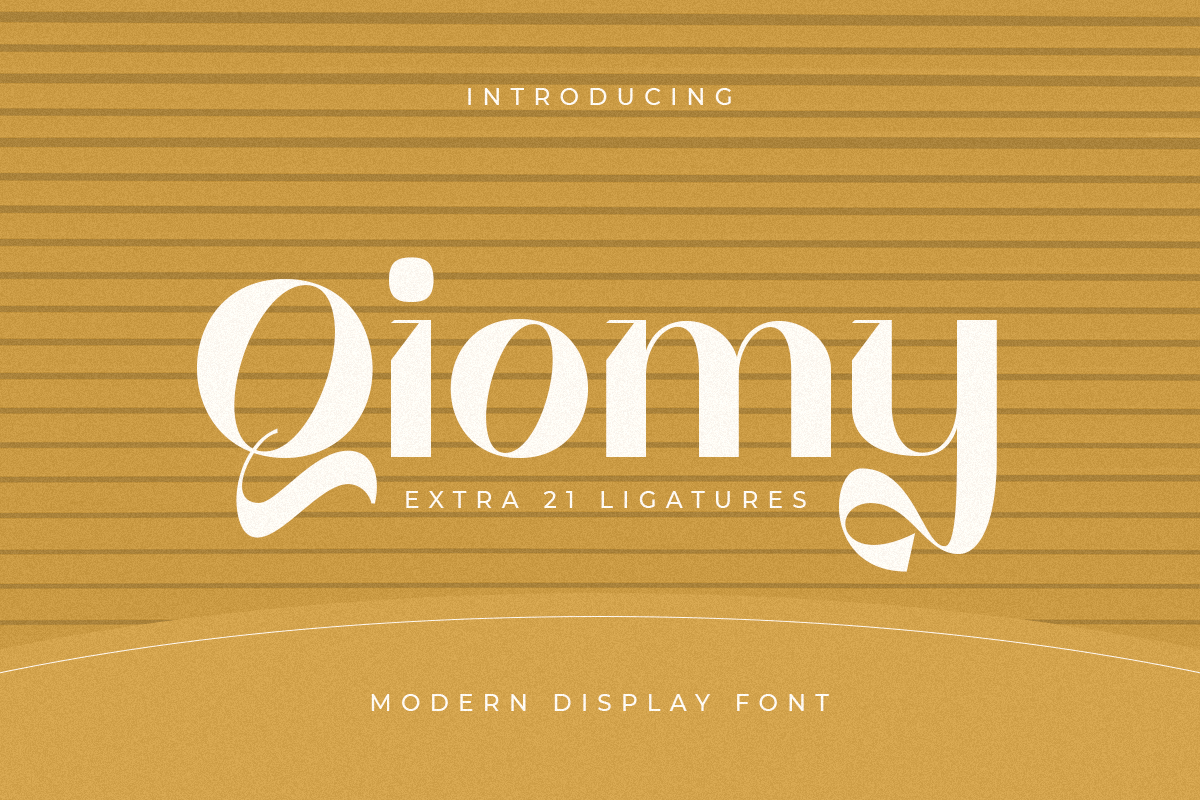
Qiomy
-Modern Display Font
Qiomy
Qiomy is A New Display font that perfect for unique Branding and any Design needs
A New font that we created special for Unique branding needs, with unique style that ready to add value of your brand. It’s so nice to leverage designer or product owner that need solutions to make their design look more unique, Stylish and elegant.